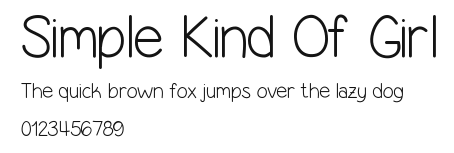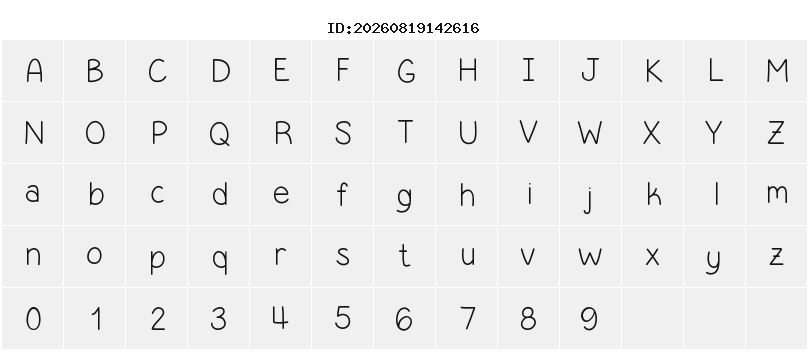
Simple Kind Of Girl Preview
• Font Name: Simple Kind Of Girl
• Font ID: Vanessa Bays: Simple Kind Of Girl
• Full Font Name: Simple Kind Of Girl
• PostScript Name: Simple Kind Of Girl
About Simple Kind Of Girl.ttf
Simple Kind Of Girl.ttf is a modern, elegant sans-serif font designed for ultimate readability and visual harmony. Perfect for branding, headlines, web design, and print materials.